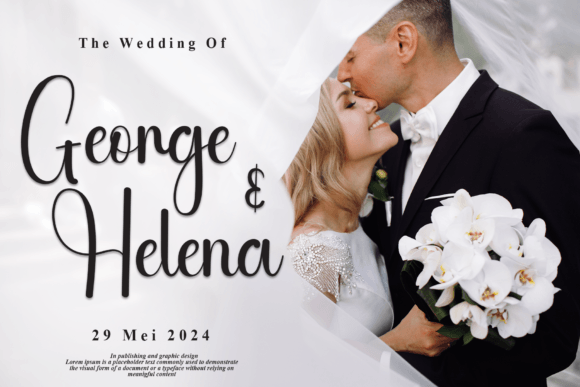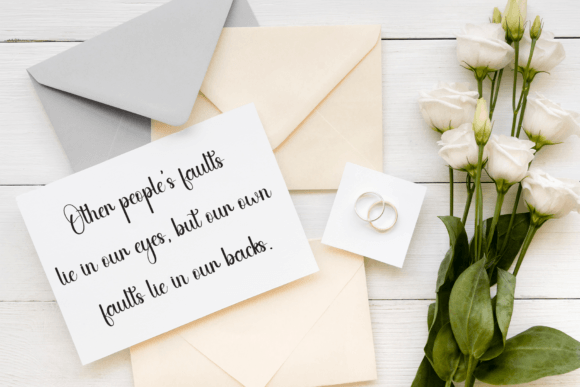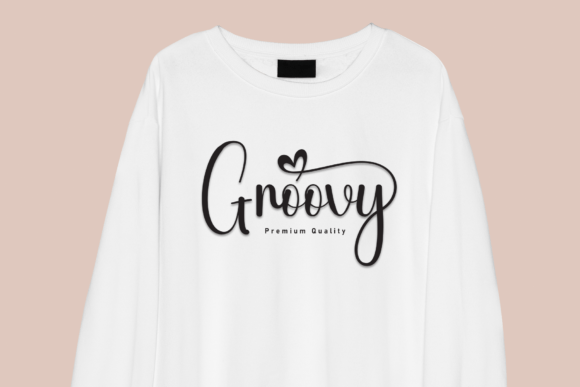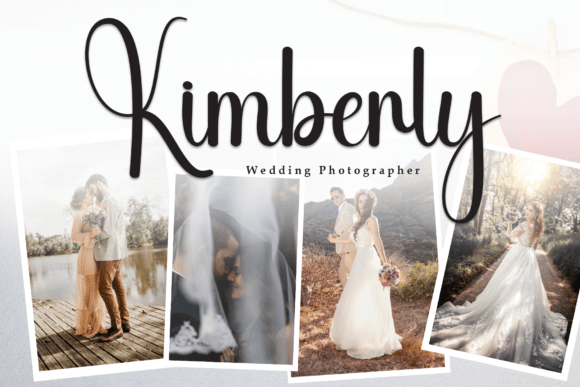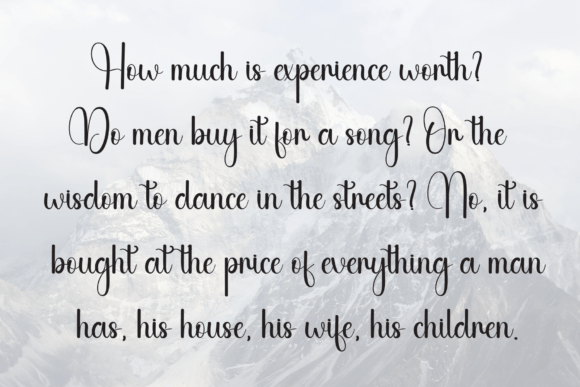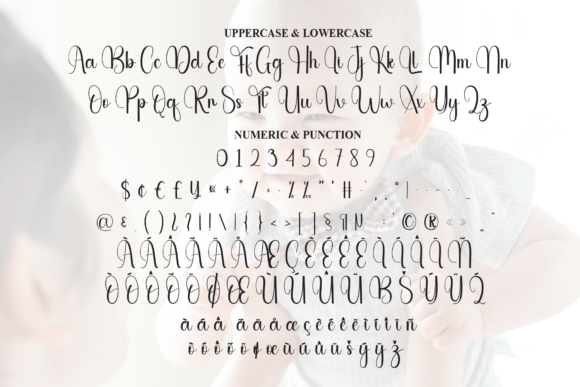
Babyday Font: The Charming Handwritten Font for Your Designs
Are you looking for a font that can add a sweet, personal touch to your designs? Look no further than Babyday Font! This charming handwritten font is perfect for creating invitations, greeting cards, and cozy branding that exudes warmth and personality. In this article, we’ll dive into the features and benefits of Babyday Font, and explore how you can use it to elevate your designs.
The Characteristics of Babyday Font
Babyday Font is a beautiful, handwritten font that boasts smooth, flowing strokes and a friendly character. Its charming and delicate appearance makes it perfect for designs that require a personal touch. The font’s flowing strokes give it a sense of movement and fluidity, making it perfect for creating elegant and sophisticated designs.
Perfect for Invitations and Greeting Cards
Babyday Font is ideal for creating invitations, greeting cards, and other paper crafts. Its sweet and charming appearance makes it perfect for special occasions such as weddings, baby showers, and birthdays. With Babyday Font, you can create beautiful and personalized invitations that will make your guests feel special.
Cozy Branding with Babyday Font
Babyday Font is not just limited to paper crafts; it’s also perfect for creating cozy branding for your business. The font’s friendly and approachable character makes it perfect for businesses that want to convey a sense of warmth and personality. Whether you’re a small business owner or an entrepreneur, Babyday Font can help you create a brand that stands out from the crowd.
Benefits of Using Babyday Font
- Unique and Personalized Designs: Babyday Font allows you to create unique and personalized designs that reflect your personality and style.
- Elegant and Sophisticated: The font’s smooth, flowing strokes give it an elegant and sophisticated appearance that’s perfect for high-end designs.
- Easy to Read: Babyday Font is easy to read, making it perfect for designs that require a clear and concise message.
- Versatile: Babyday Font can be used for a variety of designs, from invitations and greeting cards to branding and packaging.
How to Use Babyday Font in Your Designs
Using Babyday Font in your designs is easy! Here are a few tips to get you started:
- Pair it with Other Fonts: Pair Babyday Font with other fonts to create a unique and interesting contrast.
- Experiment with Colors: Experiment with different colors to find the perfect combination that matches your brand or design.
- Add Graphics and Illustrations: Add graphics and illustrations to enhance your design and make it more visually appealing.
In conclusion, Babyday Font is a charming handwritten font that brings a sweet, personal touch to your designs. With its smooth, flowing strokes and friendly character, it’s perfect for invitations, greeting cards, and cozy branding. Whether you’re a designer, crafter, or business owner, Babyday Font is a great addition to your font collection. So why not give it a try and see how it can elevate your designs?
- What is Babyday Font?: Babyday Font is a charming handwritten font that brings a sweet, personal touch to your designs.